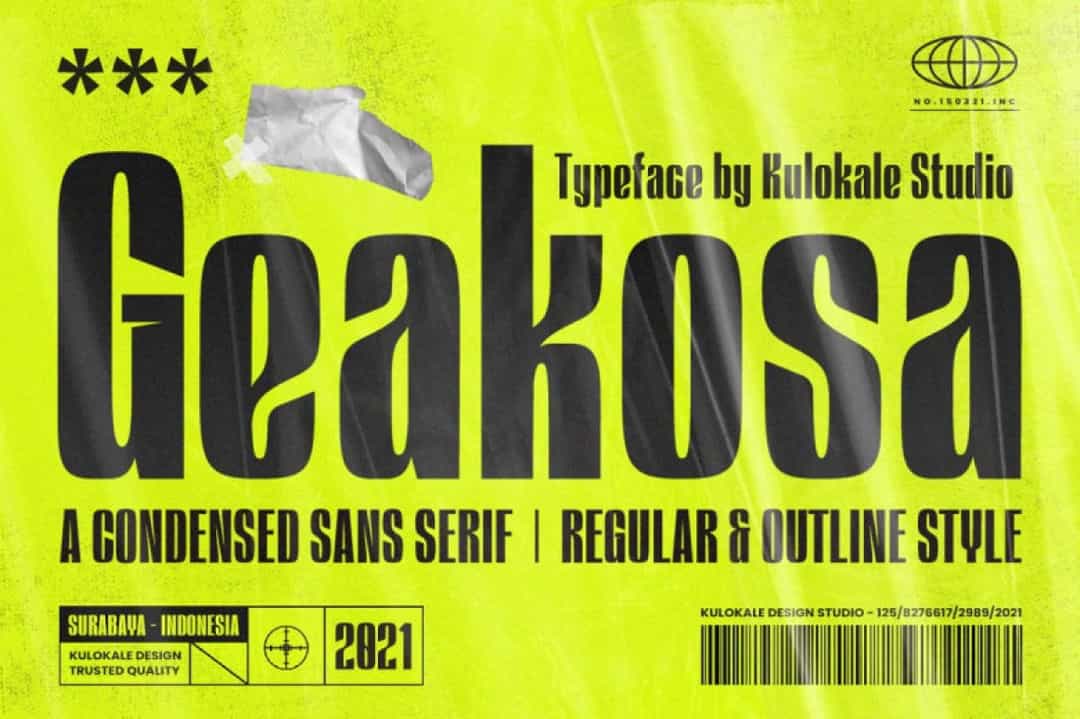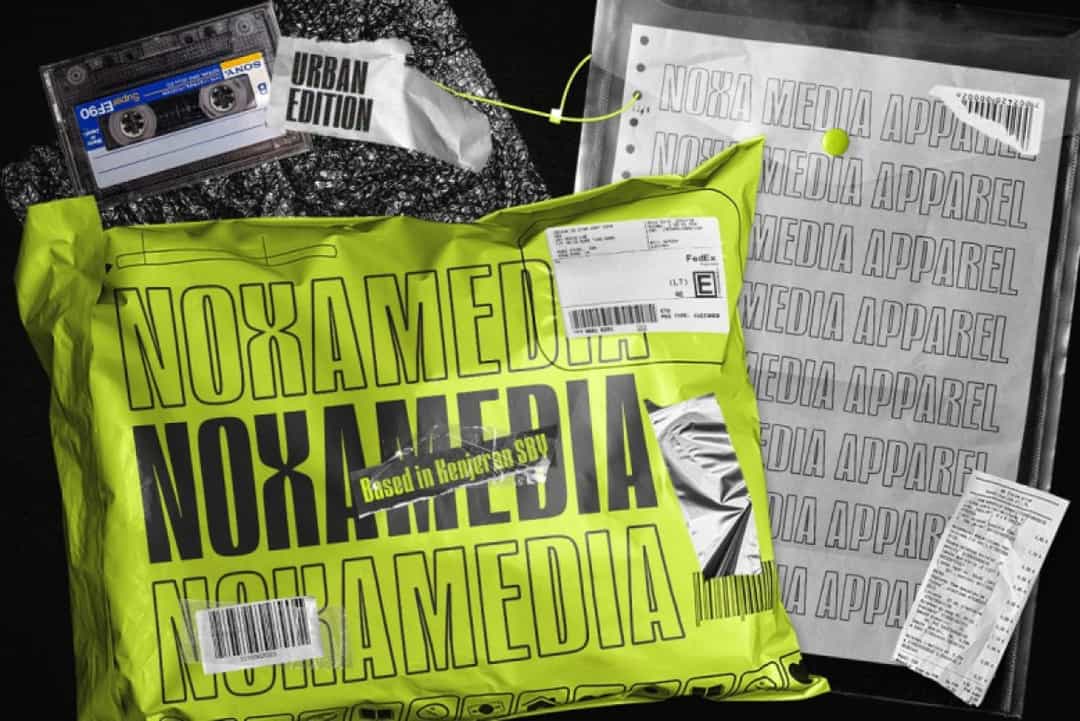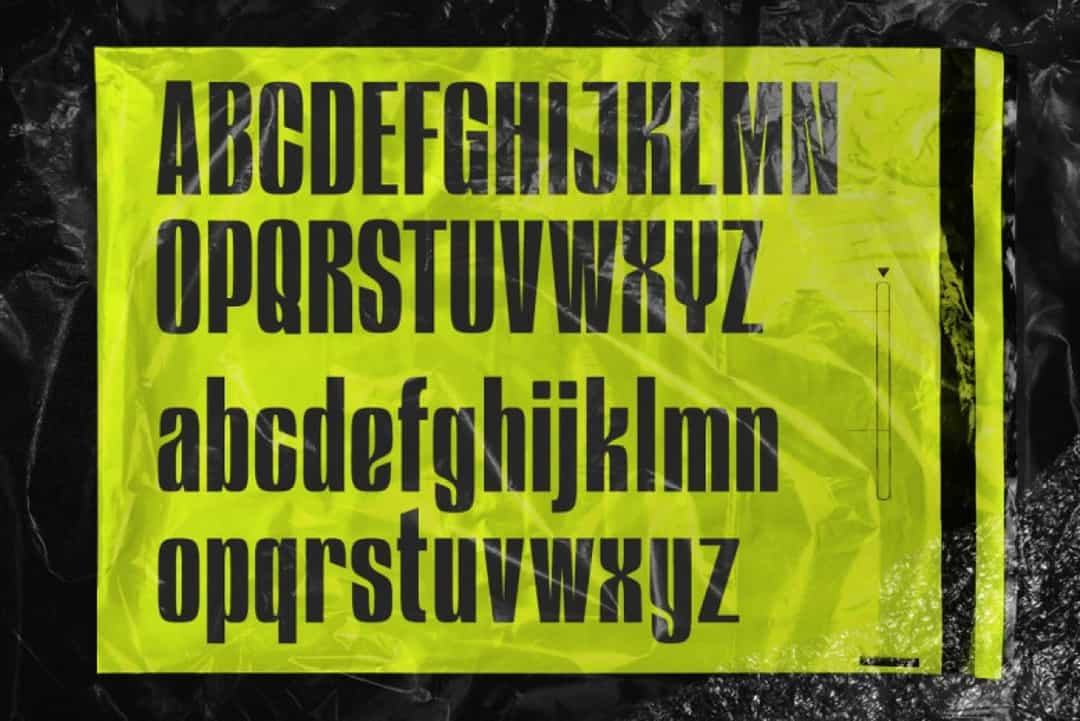
Geakosa is an eye-catching Sans-Serif display font with its own distinct style that sets it apart from other fonts. Available in both Regular and Outline styles, Geakosa makes a striking choice for posters as well as posters with headlines on social media, headlines for magazines clothing large print formats or anywhere you need something noticeable to stand out. Drawing inspiration from current design trends, Geakosa provides the ideal solution to meet every requirement you might encounter today.